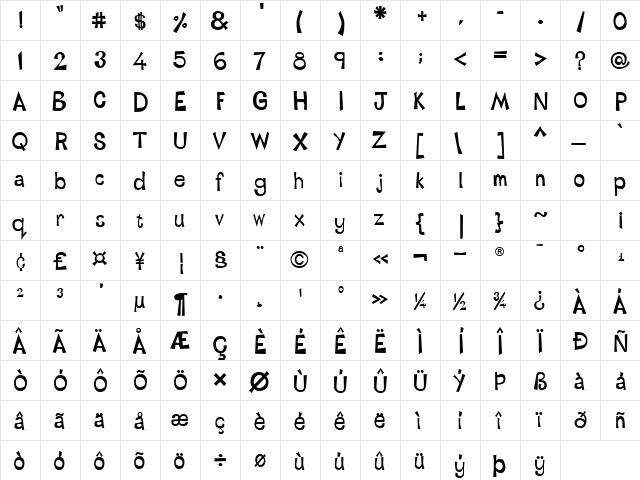
LTTapeside Regular Bold
Design Context for LTTapeside Regular Typeface
LTTapeside Regular takes a measured approach to typography — its balanced proportions and neutral character make it a reliable workhorse for both digital and print work. Its bold stroke weight gives it real presence on the page.